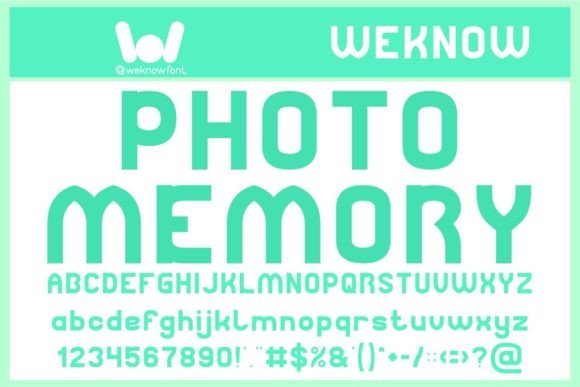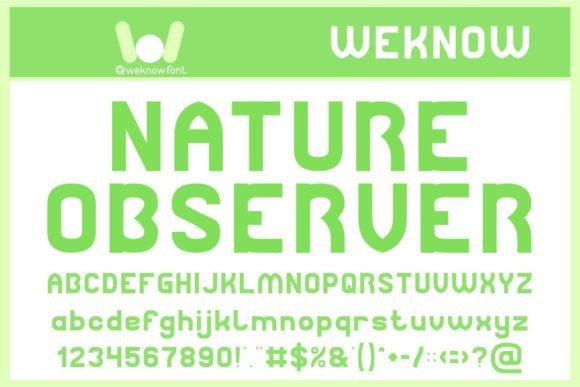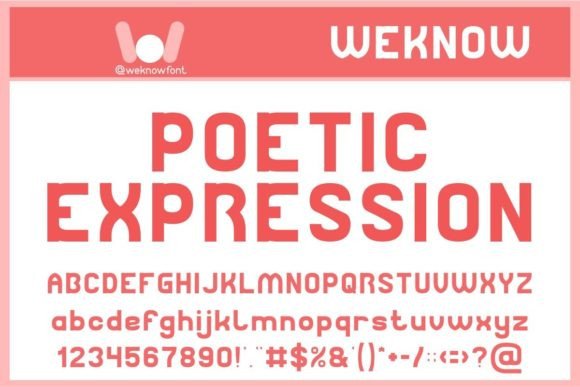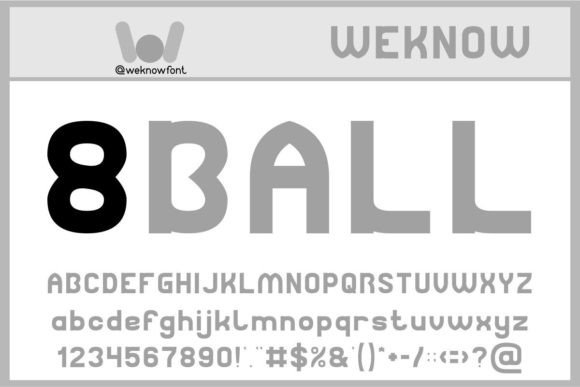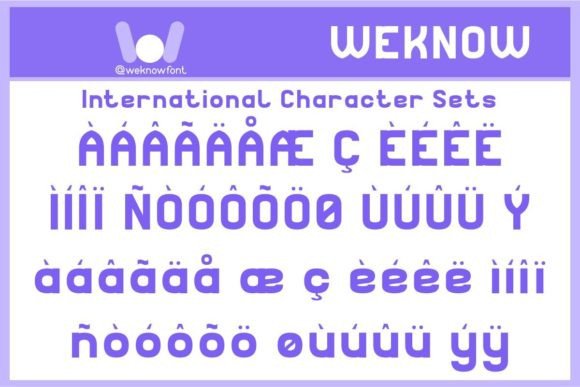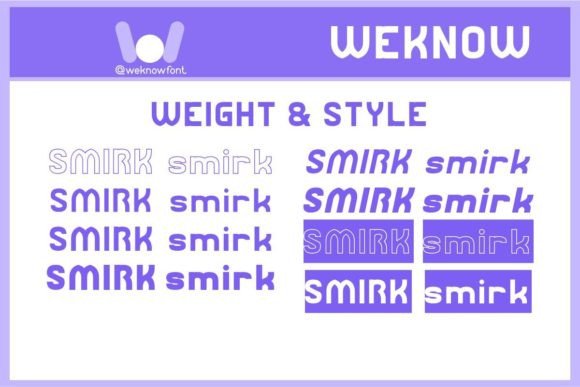
Introduction to Smirk Font
Have you ever been brainstorming ideas for a creative project and suddenly, the perfect font pops into your head? For designers, finding the right font can be a game-changer. It’s that moment when the entire design begins to take shape, and you can envision the final product. For many, that perfect font is the Smirk Font – a versatile and stylish choice for a wide range of projects.
Whether you’re working on a logo, a logotype, or a headline, the Smirk Font is a valuable design resource that can elevate your creative work. Its clean and modern aesthetic makes it suitable for various industries, from apparel to gaming, and its transparent background allows for seamless integration with any design. With a free download available, designers can easily access this high-quality font and take their projects to the next level.
Key Features of Smirk Font
- High-quality, professional design suitable for various creative projects.
- Unique, modern design that can add a touch of personality to any creative project or design.
- Includes a range of glyphs and characters, making it suitable for various languages and design applications.
Honest Review: Smirk Font
As a designer, I’m always on the lookout for high-quality fonts to enhance my creative projects. I recently came across the Smirk Font and was excited to give it a try.
- High quality and detailed design
- Works well for a variety of creative projects
- Supports a transparent background
However, there are a few limitations to keep in mind. The font is not suitable for large-scale text, and it may not display well on all devices.
- Not suitable for large-scale text
- May not display well on all devices
Overall, I’m impressed with the Smirk Font and would definitely recommend it to fellow designers. It’s a great resource for adding a touch of personality to your creative projects.
Smirk Font
The Smirk Font is a versatile and high-quality design resource that can elevate any creative project. With its unique and playful style, it’s perfect for adding a touch of personality to your designs. You can download the Smirk Font for free and use it in a variety of applications.
Tips for Getting the Most Out of Smirk Font
To get the most out of the Smirk Font, try experimenting with different font sizes, colors, and styles. You can also use the font in combination with other design elements, such as images and shapes, to create a unique and eye-catching design.
The Smirk Font is perfect for a variety of creative projects, including social media graphics, presentations, and marketing materials. It’s also great for use in design projects that require a playful and fun tone, such as children’s books and party invitations.